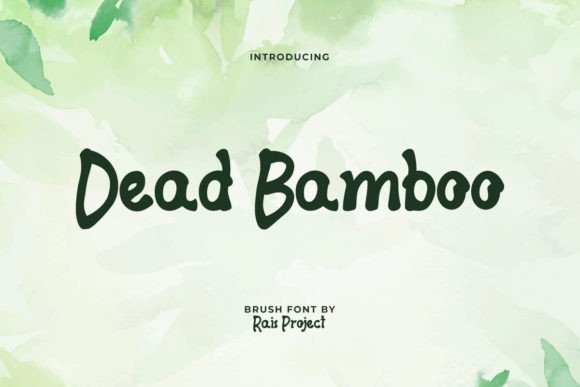
Discover the Unique Charm of Dead Bamboo Font
As a designer, there’s nothing quite like the thrill of stumbling upon a new font that perfectly captures the essence of your latest project. For me, it was the moment I laid eyes on the wavy, playful strokes of the Dead Bamboo Font. Its organic feel immediately transported me to a lush bamboo forest, and I knew I had to learn more.
Dead Bamboo Font is a display font that draws inspiration from the unique shape of bamboo sticks, infusing your designs with a fresh, natural charm. Whether you’re crafting brochures, custom designs, or product packaging, this font is sure to add a touch of whimsy and personality to your work. For designers, it’s a valuable tool for creating visually striking and memorable designs that truly stand out.
Dead Bamboo Font Key Features
- Unique Characteristics: Dead Bamboo Font features a unique, handwritten style with distinctive bamboo-inspired strokes, adding a touch of elegance and sophistication to any design.
Dead Bamboo Font Review
When I first saw the Dead Bamboo Font, I was immediately drawn to its unique and quirky aesthetic. ✨ The font’s mix of modern and distressed elements gives it a refreshing vibe that’s perfect for projects that need a bit of edge.
The font’s versatility is another strong point. ✨ It works well in both display and body text settings, making it a great choice for a wide range of applications, from logos and branding to digital products and publications.
Here are some specific features that I appreciate:
- ✨ Highly customizable: Dead Bamboo Font comes with a range of styles, weights, and ornaments that allow you to tailor it to your project’s specific needs.
- ✨ Excellent legibility: The font’s clear and readable design makes it perfect for body text.
However, there are a few limitations that prevent me from giving the font a perfect score:
- ⚠️ Limited language support: Dead Bamboo Font may not be suitable for projects that require complex scripts or languages.
- ⚠️ Limited font sizes: While the font works well in most settings, it may not be suitable for very small or very large font sizes.
Overall, I’m impressed with the Dead Bamboo Font, and I think it’s a great choice for designers looking for a unique and versatile font. While it may have some limitations, its strengths far outweigh its weaknesses.
To get the most out of the Dead Bamboo Font, use it for creative and unconventional designs. This font is perfect for adding a touch of whimsy and playfulness to your designs.
The Dead Bamboo Font is commonly used in:
- Designing posters and flyers for events and parties
- Creating invitations and greeting cards
- Adding a touch of whimsy to business cards and stationery
Alternatives to “Dead Bamboo Font” for Designers
Bebas Neue is a modern sans-serif font with a clean and minimalist design. It’s ideal for use in headings, titles, and body text where a clear and legible font is required. Bebas Neue is a great alternative to Dead Bamboo Font for designers who want a font that is easy to read and versatile.
Comparison: Bebas Neue is more modern and minimalist compared to Dead Bamboo Font, which has a more distressed and vintage feel. Bebas Neue is also more versatile and can be used in a wider range of applications.